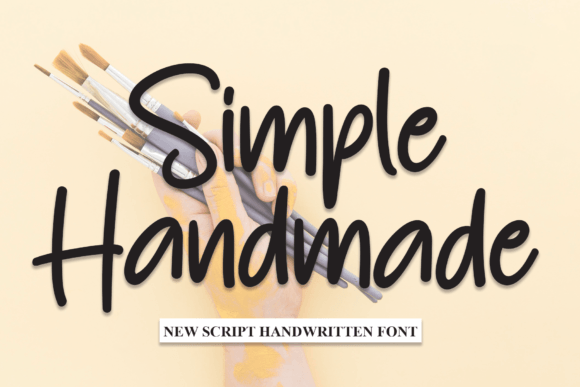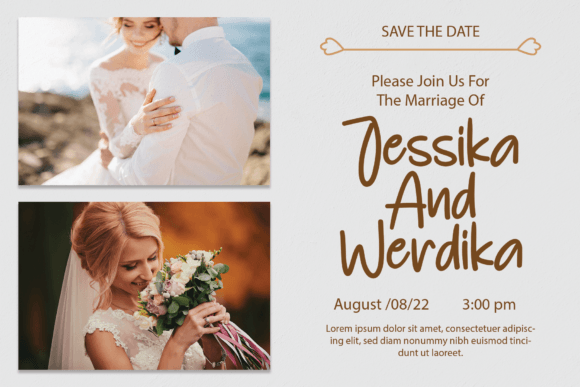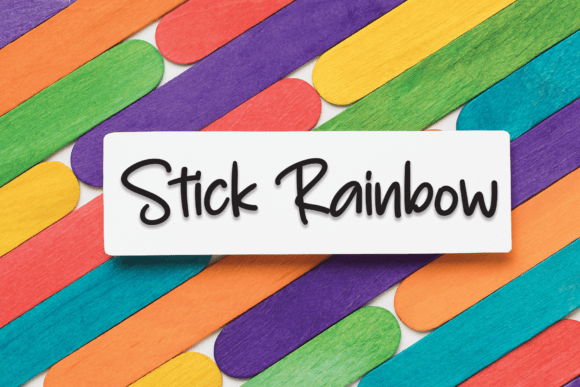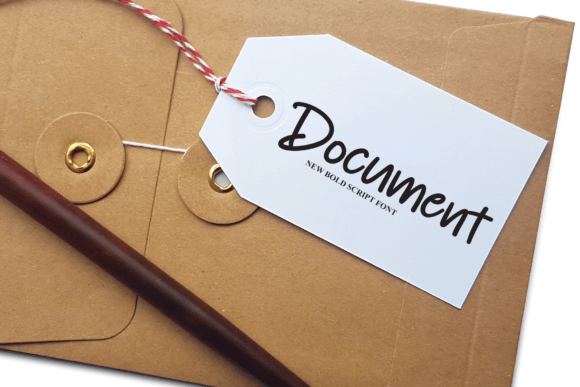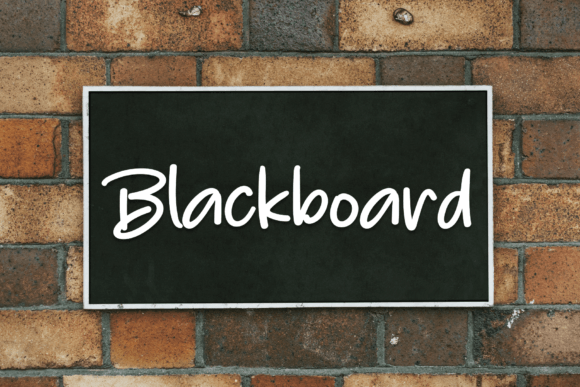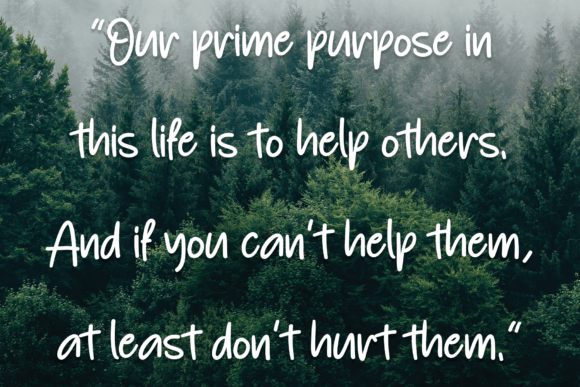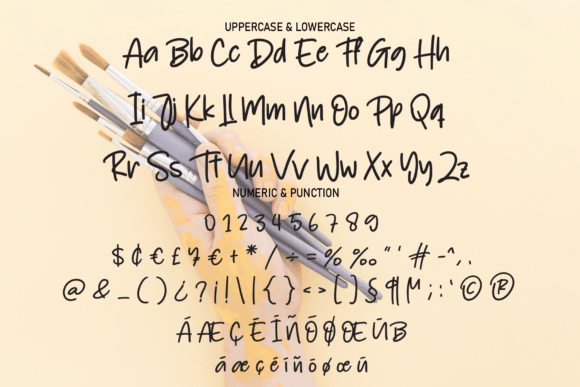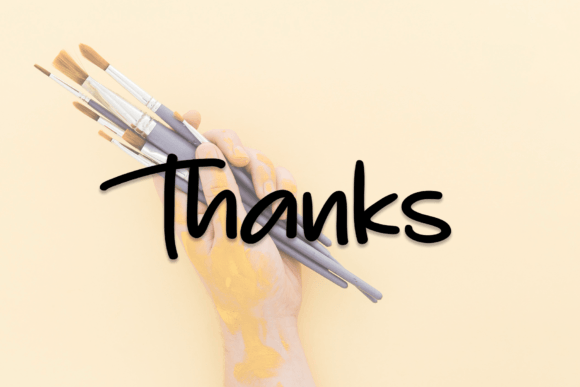
Simple Handmade Font
About Simple Handmade Font
Simple Handmade’s latest style letters are a testament to perfection, offering an ideal solution for an array of creative applications. Its distinctive charm makes it particularly well-suited for wall displays, infusing spaces with a touch of authenticity and a hint of artistic flair. Whether you’re planning a wedding or crafting invitations for any special occasion, Simple Handmade’s letters add a unique, handwritten taste that elevates the entire experience.
In the digital landscape, Simple Handmade shines as it breathes life into social media post logos. Its latest style letters bring a fresh and contemporary vibe, ensuring that your brand or project stands out in the competitive online sphere. The font’s versatility extends seamlessly to product packaging, where it becomes an integral design element, enhancing the visual identity of various products across diverse industries.
For product designs, labels, and creative projects, Simple Handmade’s letters become a design asset, introducing an element of personal touch that captivates consumers. The font’s aesthetic appeal seamlessly integrates with photography, transforming images into visual stories with a handwritten narrative. Whether used for watermarks or invitations, Simple Handmade imparts a warmth and uniqueness that resonates with authenticity.
Moreover, when it comes to stationery, Simple Handmade’s letters add a touch of elegance, turning everyday notes into memorable expressions of creativity. Its versatile nature allows it to adapt to any project that requires a handwritten taste, ensuring that the final result is not just visually appealing but also infused with a sense of personalized authenticity.
In essence, Simple Handmade’s latest style letters transcend their typographic function; they become a design language that elevates wall displays, wedding invitations, social media post logos, product packaging, product designs, labels, photography, watermarks, invitations, stationery, and various creative projects. The font’s ability to seamlessly blend handwritten charm with contemporary design aesthetics makes it an invaluable tool for designers and creatives across a spectrum of visual storytelling.